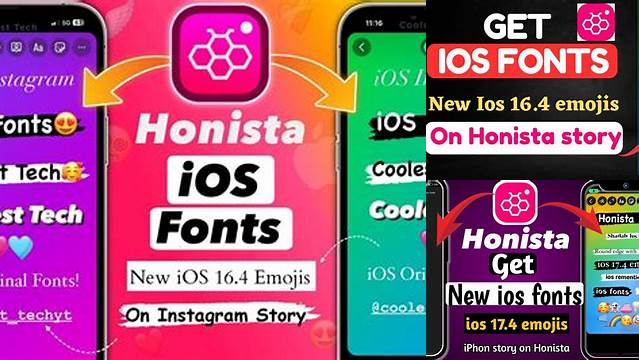
Honista IOS Fonts: Download Guide 2026
Hey guys! Want to give your Honista app that fresh iOS look in 2026? You're in the right place! We're diving deep into how to snag those awesome iOS fonts for your Honista, making your profile pop. Let’s get started and make your Honista experience even cooler!
Honista Fonts iOS Style
Want to give your Honista that sleek iOS vibe? It's all about the fonts! The classic iOS fonts like San Francisco (SF Pro) are super clean and modern, making everything look polished. When you bring these fonts to Honista, your profile and posts get an instant upgrade. Think about how much more eye-catching your stories and bios will be! This is a fantastic way to stand out and keep your followers engaged. Plus, it's a simple change that makes a big impact on your overall aesthetic. Imagine scrolling through your feed and seeing every post with that crisp, familiar iOS font. It's a game-changer, trust me!
So how do you actually do this? Well, there are a few tricks we'll get into later, including using font customization apps and tweaking some settings. But the bottom line is that achieving that iOS font style on Honista is totally doable, and it's well worth the effort if you're aiming for a consistent and stylish look. It not only enhances your visual appeal but also gives a professional touch to your content. Always remember that the devil is in the details; choosing the right font makes all the difference.
Once you've downloaded an app, the process is usually pretty straightforward. You'll need to grant the app permission to access your device's settings and then browse through the available fonts. Some apps come with a built-in library of fonts, while others allow you to upload your own font files (like the iOS fonts you downloaded earlier). Once you've found the font you want, simply tap to apply it, and the app will handle the rest. It’s like magic, but with fonts! Always ensure the app you choose is safe and secure to protect your device's data.
Honista iOS Font Styles 2026
Alright, let’s dive into what iOS font styles will be trending in Honista come 2026! While the classic San Francisco (SF Pro) font will likely remain a favorite for its clean and modern look, expect to see variations and customizations gaining popularity. Think slightly bolder weights for better readability, or perhaps condensed versions to maximize space in captions and bios. Also, keep an eye out for fonts that mimic the rounded, friendly aesthetic of iOS, as these can add a touch of warmth and personality to your Honista profile. The key is to find a font that not only looks good but also reflects your personal brand and style.